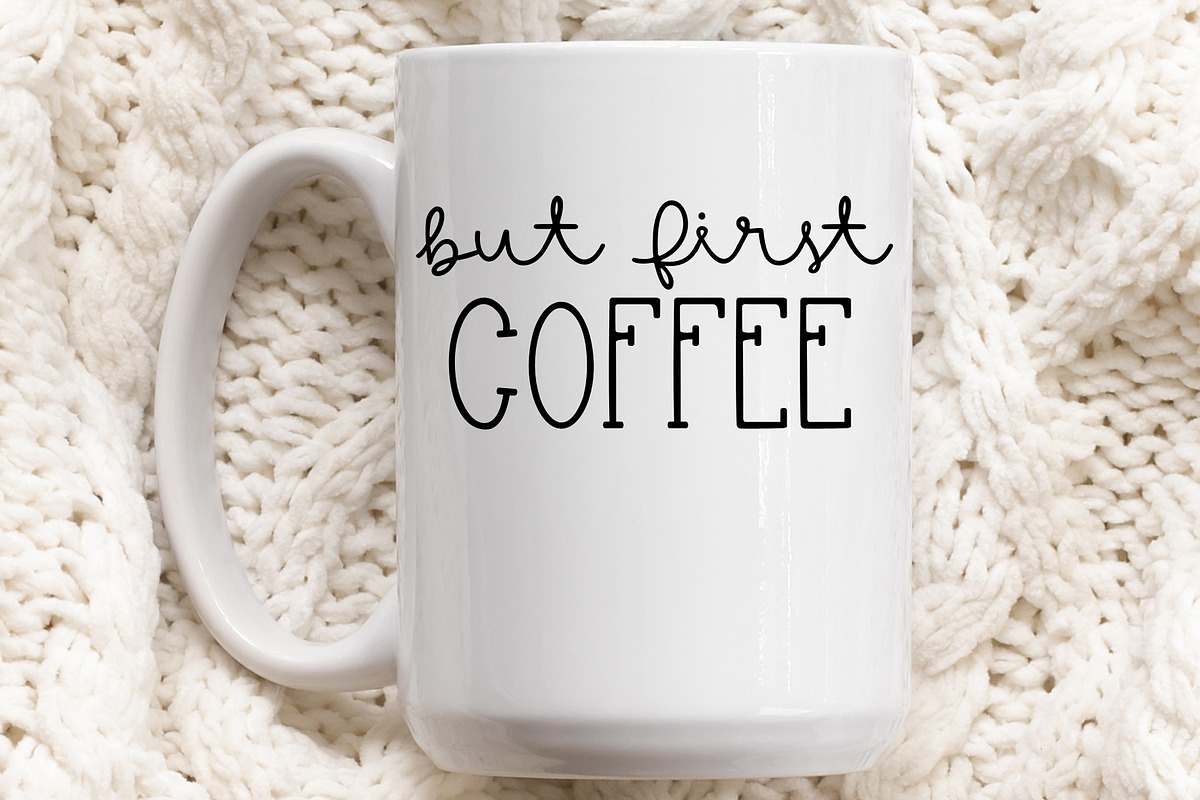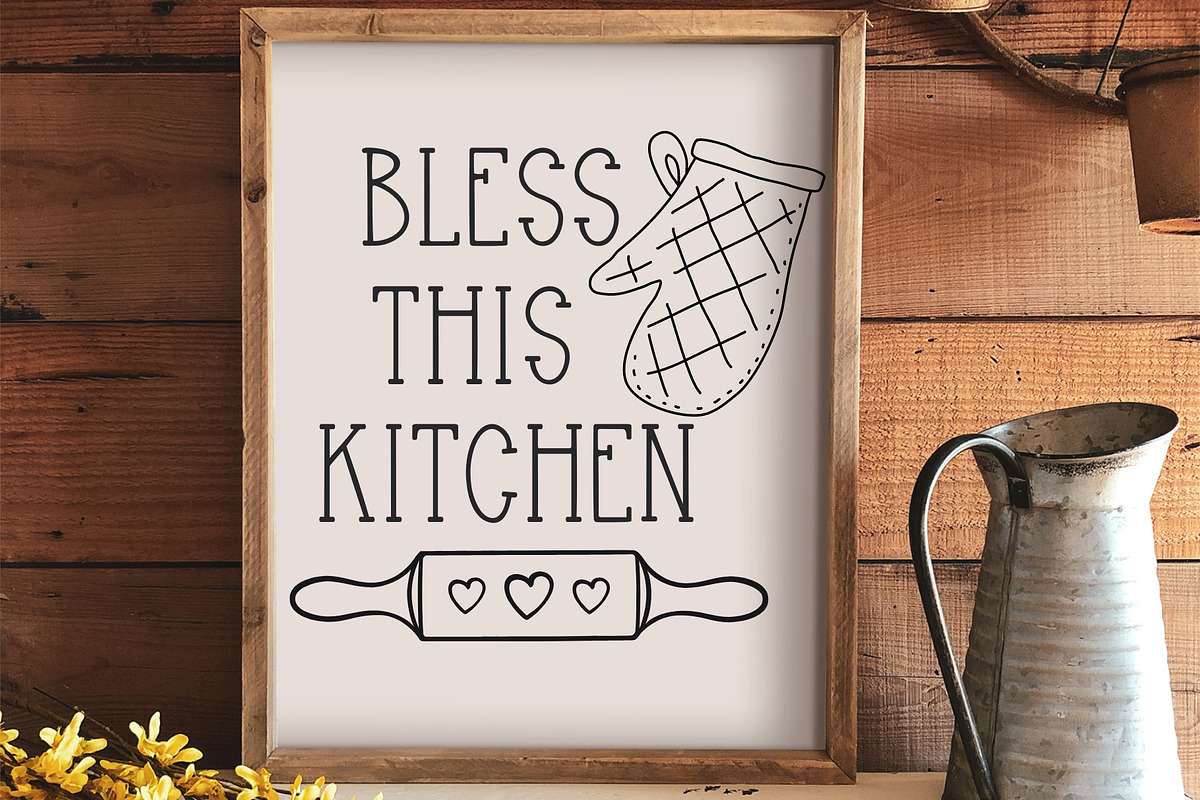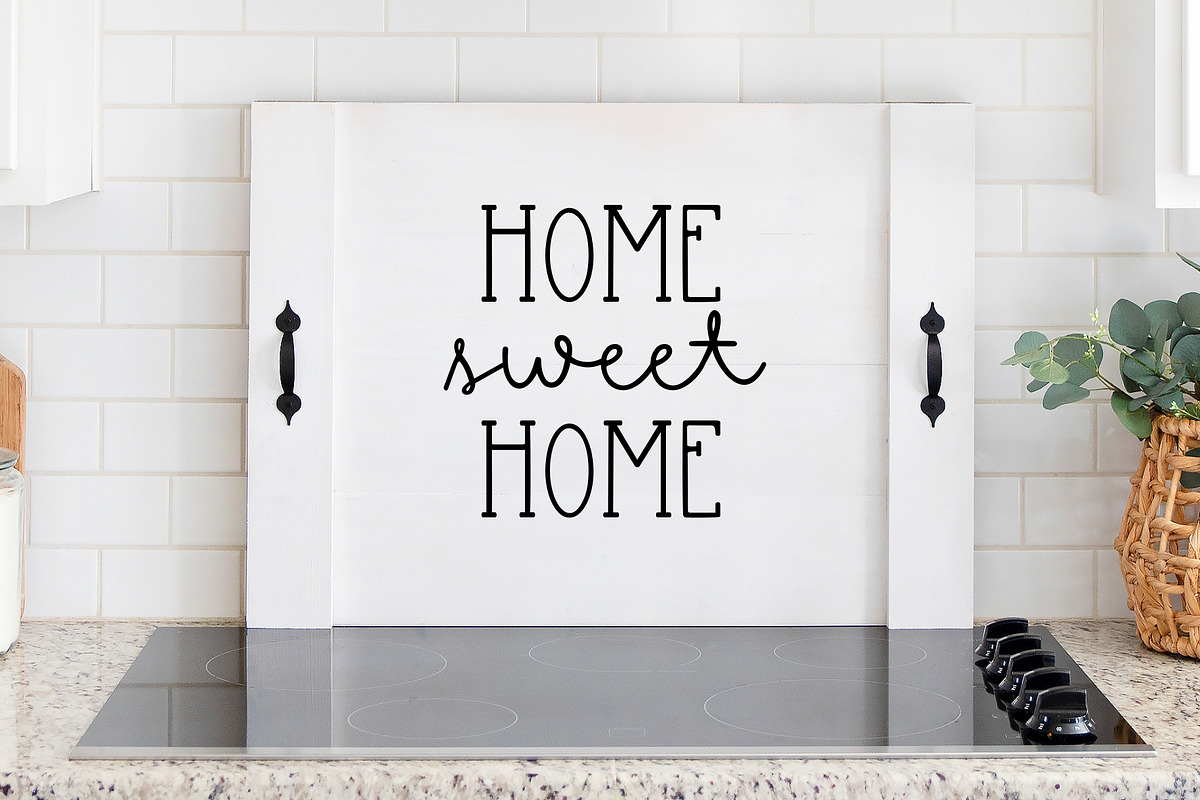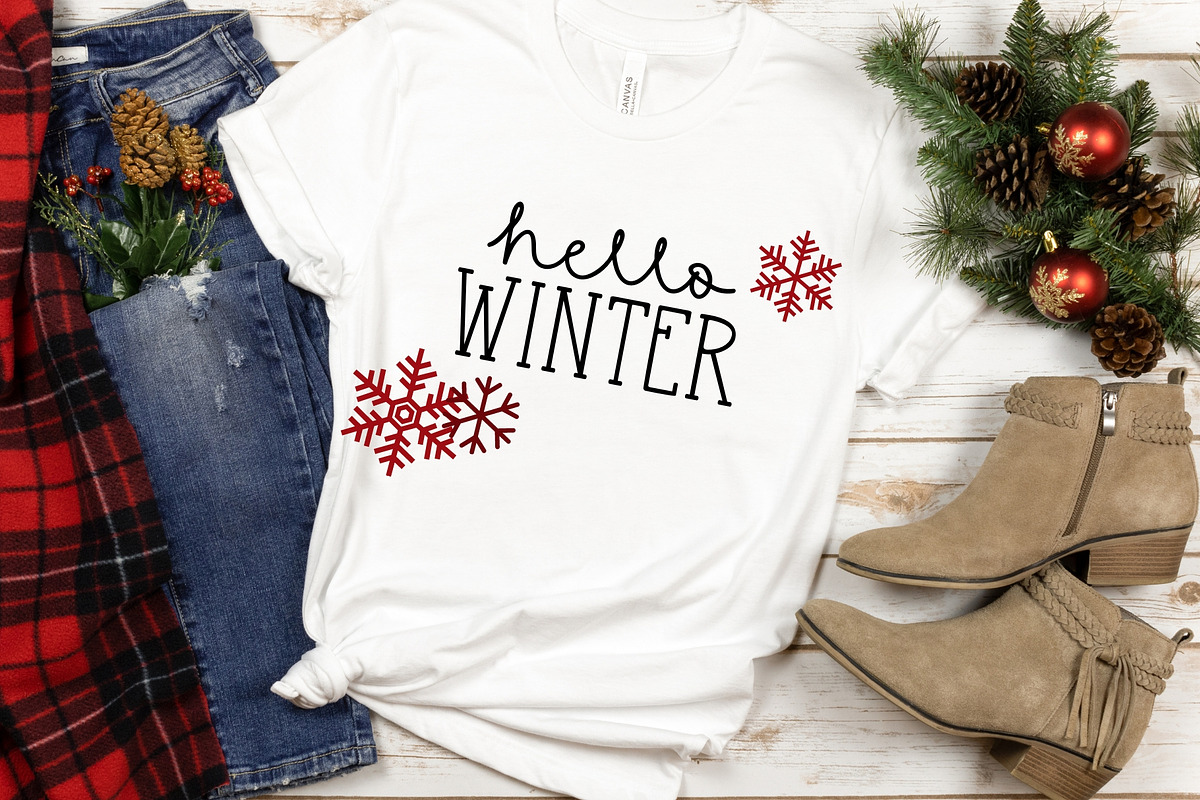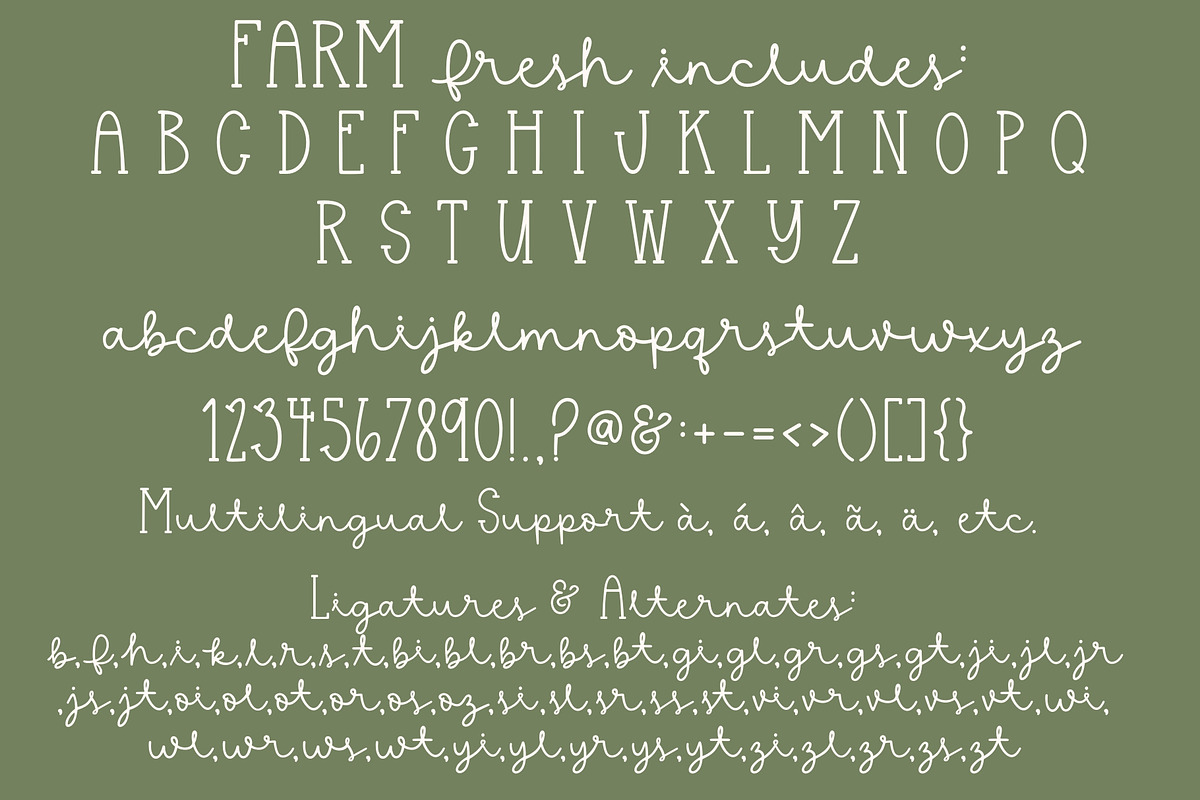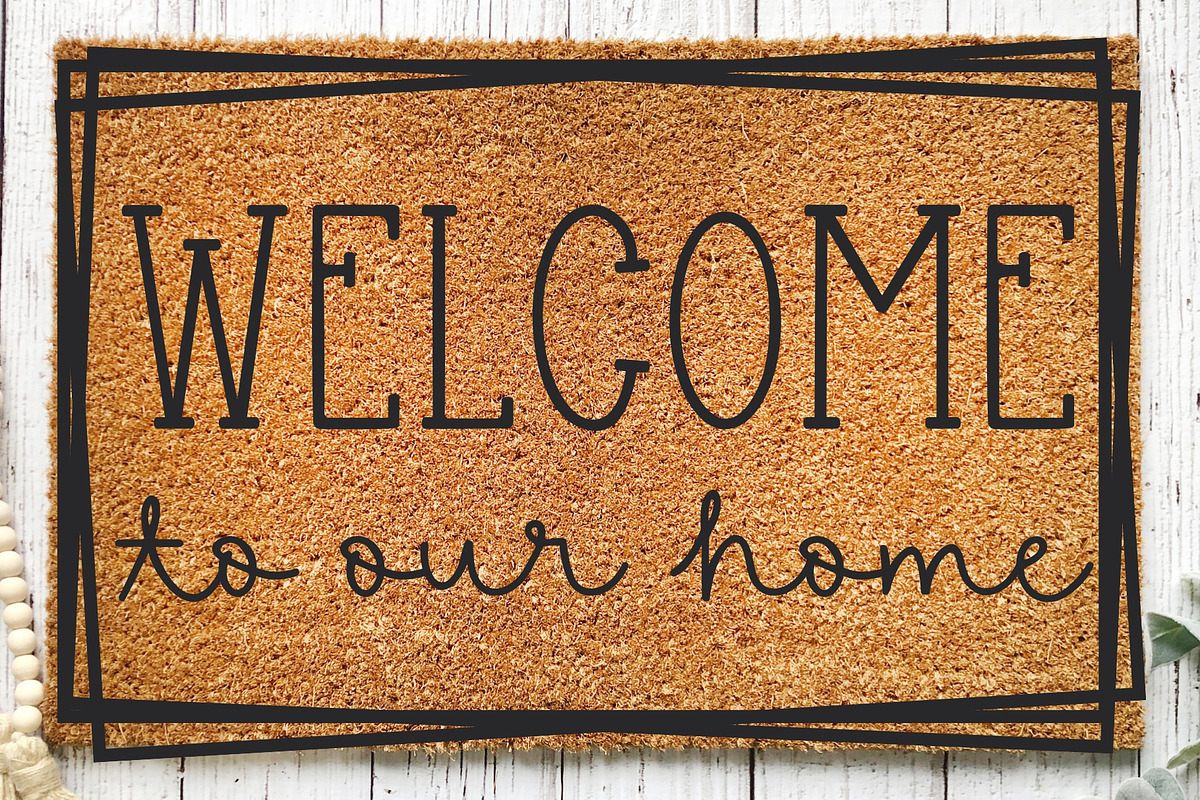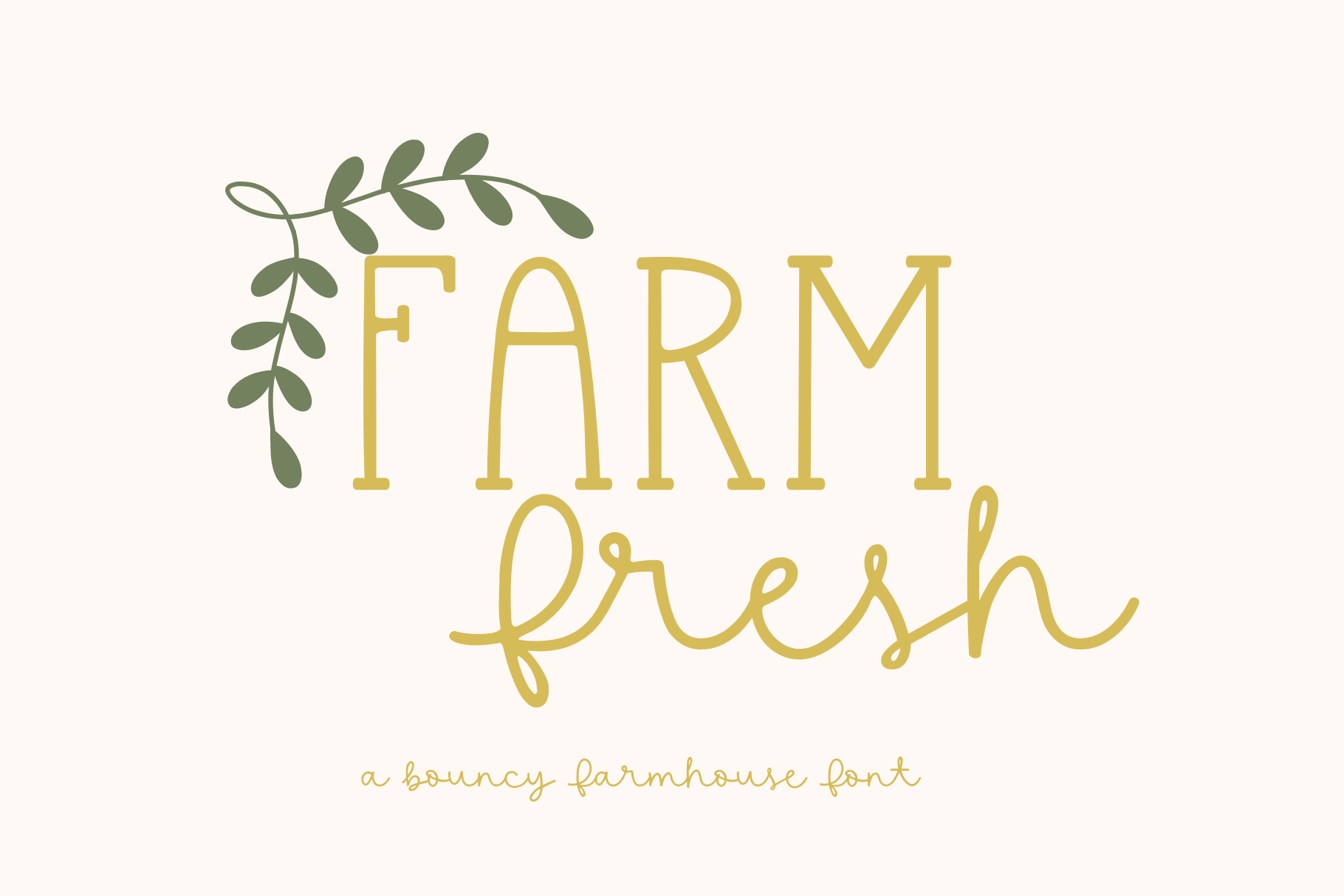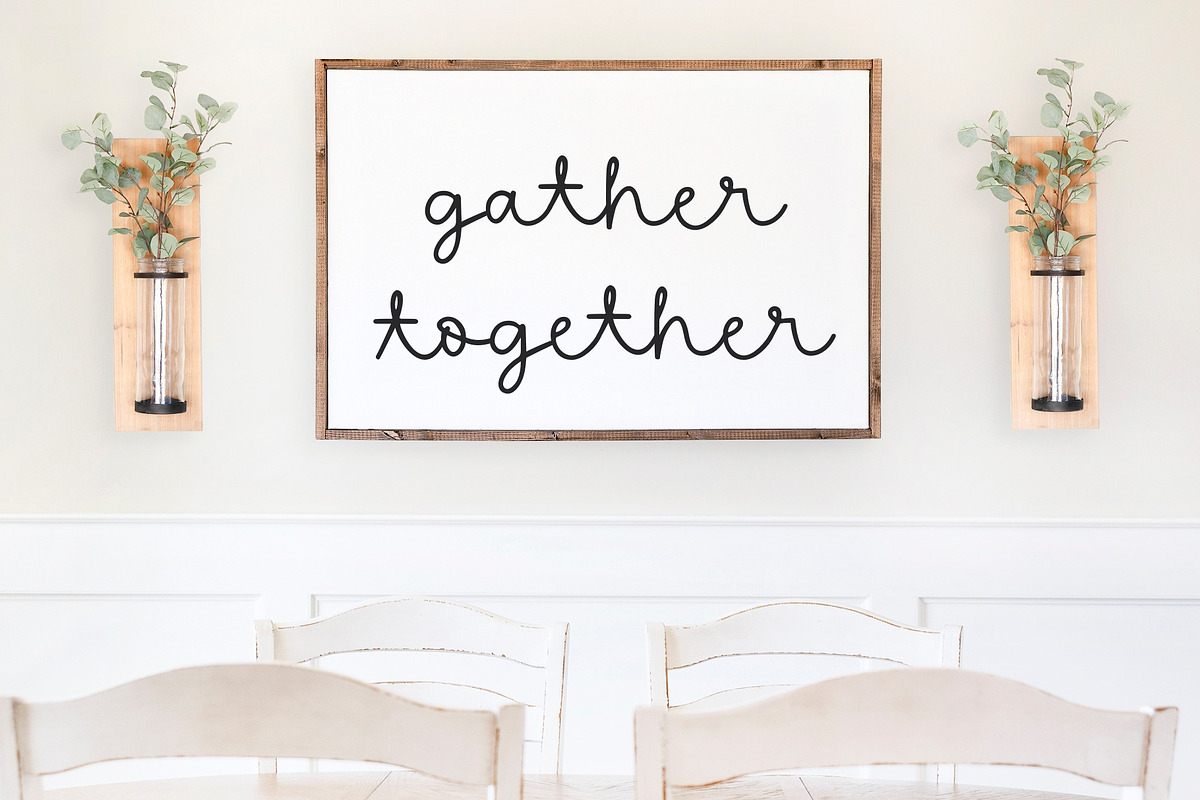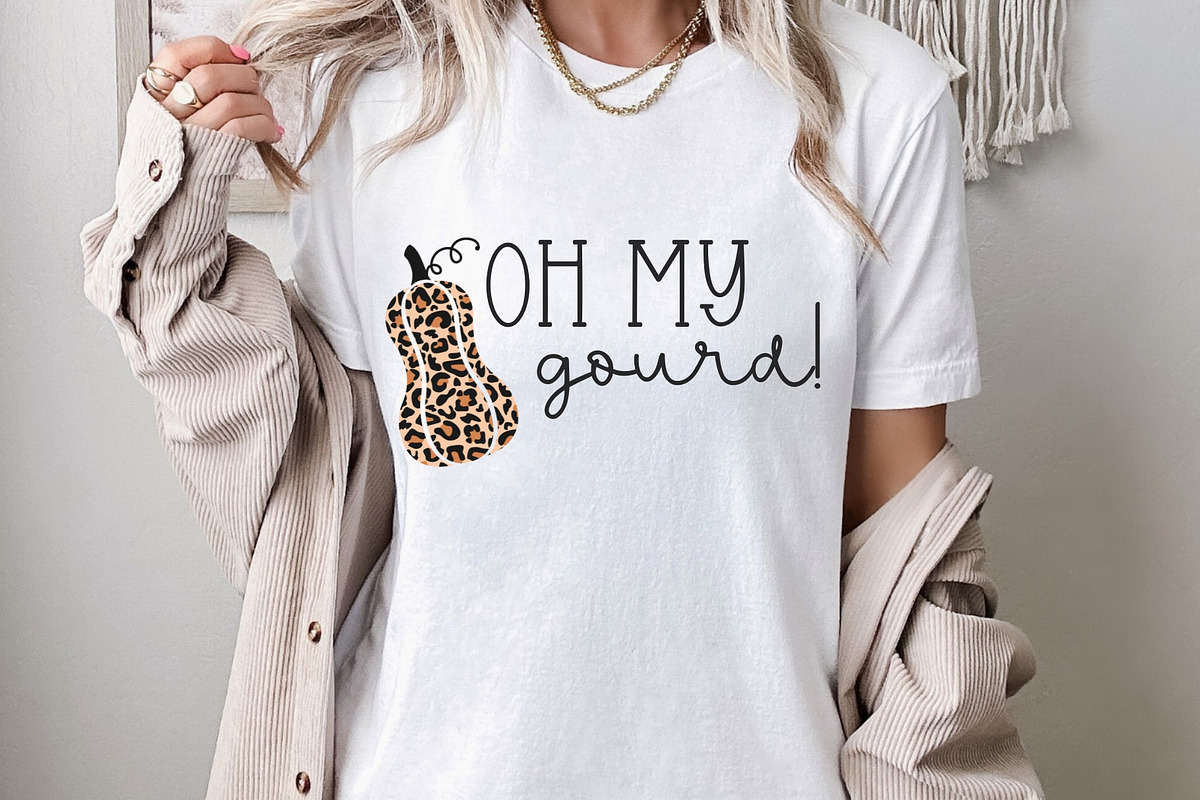
Farm Fresh, Cute Farmhouse Font
Introducing Farm Fresh, our farmhouse handwritten font for Cricut and more, perfect for all your creative projects! With its elegant curves and smooth strokes, our cute script font brings a delightful touch to invitations, greeting cards, and personalized crafts. Our handwriting font is compatible with SVGs, Goodnotes, Procreate, and many other programs. Transform your designs into stunning works of art with this versatile cursive handwriting, the ultimate choice for anyone seeking a captivating and expressive typeface for their projects.